Optimization of Web Font 06: “size-adjust, ascent-override, and descent-override”
I introduced FOUT (flickering at the time of replacing the font), which is a web font issue, in Optimization of Web Font 01: “FOIT and FOUT.
At the time of utilizing web font, the page layout is changed due to the change in the number of text lines caused by switching. It may cause a reduction in user experience, such as obstruction of reading text and mis-clicking, and increases in the CLS (Cumulative Layout Shift: index specified by Google that shows the degree of the layout shift at the time of reading a page) score.
As aids, there are settings called size-adjust, ascent-override, and descent-override in the @font-face rule in CSS.
As the Japanese fonts are mostly in the same dimensions, these settings are done for mainly Latin fonts.
In size-adjust, the font enlargement ratio is adjusted. The appearance size of the Latin fonts is mostly determined by x-height. Setting size-adjust for the fallback font in accordance with x-height of the utilized web font will minimize the gap of the appearance when replacing the font.
It is a good idea to set ascent-override and descent-override similarly for the fallback font to match the ratios of descender and ascender for the body of the utilized web font.
In the image below, the left side shows AXIS Font Basic L, the middle shows Arial, referring to x-height and adjusted by size-adjust to match AXIS Font Basic L, and the right side shows Arial as is. As you can see, the Latin part of the adjusted font is matched with AXIS Font to some degree in terms of the appearance size.
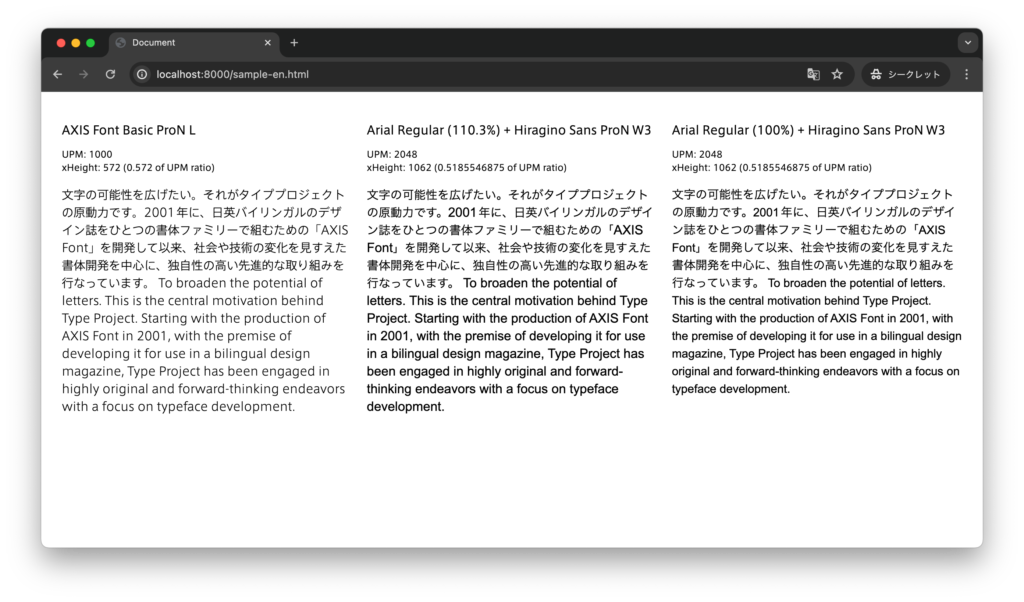
In the image below, the left side shows AXIS Font Basic L, the middle shows Arial, referring to x-height and adjusted by size-adjust to match AXIS Font Basic L, and the right side shows Arial as is. As you can see, the Latin part of the adjusted font is matched with AXIS Font to some degree in terms of the appearance size.
As of January 2024, ascent-override and descent-override are not supported in Safari (macOS, and iOS).